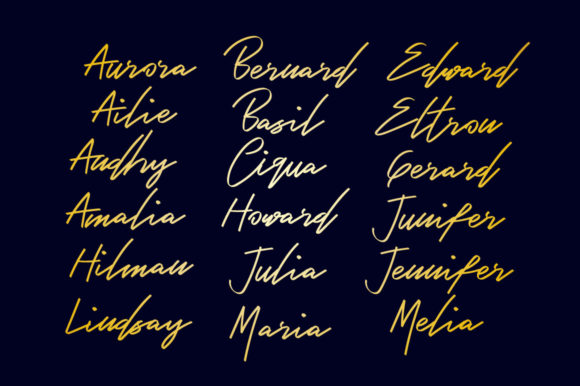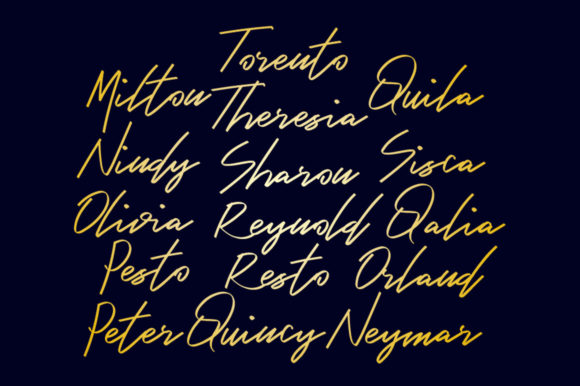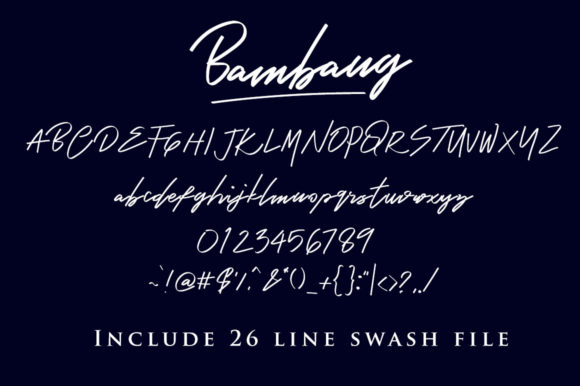
The Bambang Font: A Unique Signature Font Inspired by Javanese Soldiers
In the world of typography, fonts play a crucial role in conveying the tone and personality of a brand or design. Among the numerous fonts available, the Bambang font stands out as a distinctive and bold signature font. Inspired by the old names of Javanese soldiers, this font embodies a sense of strength and masculinity, making it perfect for various design applications.
The Origins of the Bambang Font
The Bambang font draws its inspiration from the traditional handwriting style of old Javanese soldiers. This style was commonly used by elderly individuals to sign their names, and it is characterized by bold, strong, and manly characters. The font’s unique design is a nod to the rich cultural heritage of Java, and its distinctive features make it an excellent choice for designers looking to add a touch of authenticity to their work.
Key Features of the Bambang Font
The Bambang font boasts several key features that make it an attractive option for designers and crafters. Some of its notable characteristics include:
- Manly and bold characters: The Bambang font features robust and confident characters that exude a sense of strength and masculinity.
- Handwritten style: The font’s handwritten style gives it a personal and unique touch, making it perfect for designs that require a human touch.
- Strong and sturdy: The Bambang font’s bold lines and sturdy construction make it ideal for designs that require a sense of solidity and dependability.
Design Applications for the Bambang Font
The Bambang font’s versatility makes it suitable for a wide range of design applications. Some of the ways designers and crafters can use this font include:
- Name cards and business cards: The Bambang font’s bold and confident characters make it an excellent choice for name cards and business cards.
- Branding and logos: The font’s unique style and strong characters make it perfect for branding and logo design.
- Product designs: The Bambang font can add a touch of personality and authenticity to product designs, making it ideal for packaging and labeling.
- Advertising and marketing materials: The font’s bold and attention-grabbing style makes it suitable for use in advertising and marketing materials.
Tips for Using the Bambang Font
To get the most out of the Bambang font, designers and crafters can follow these tips:
- Use it sparingly: The Bambang font’s bold style can be overwhelming if overused. Use it sparingly to create emphasis and add visual interest.
- Pair it with complementary fonts: The Bambang font can be paired with other fonts to create a unique and visually appealing combination.
- Experiment with colors and textures: The font’s bold style can be enhanced with different colors and textures, making it perfect for designs that require a pop of color or texture.
The Bambang font is a unique and versatile signature font that is perfect for designers and crafters looking to add a touch of authenticity and personality to their work. Its bold and strong characters, combined with its handwritten style, make it an excellent choice for a wide range of design applications. Whether you’re designing name cards, branding materials, or product designs, the Bambang font is sure to make a lasting impression.